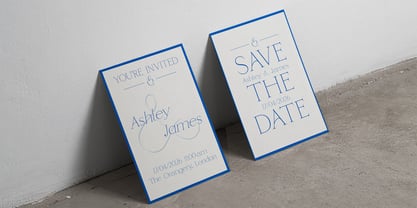
Heartstring
by Lost Letters Foundry
The Heartstring Font Family was designed by and published by Lost Letters Foundry. Heartstring contains 2 styles and family package options. More about this family
Heartstring is a delicate and lightweight display typeface crafted by Lost Letters Foundry, spanning development from 2022 to 2025. With 250 glyphs, it provides extensive language support, featuring elegant ligatures that enhance its visual appeal. The typographic refinement and subtle details of Heartstring make it ideal for larger font sizes, such as headlines and branding materials. This versatile typeface is available in two styles: regular and oblique, making it suitable for various applications including editorial design and web use.